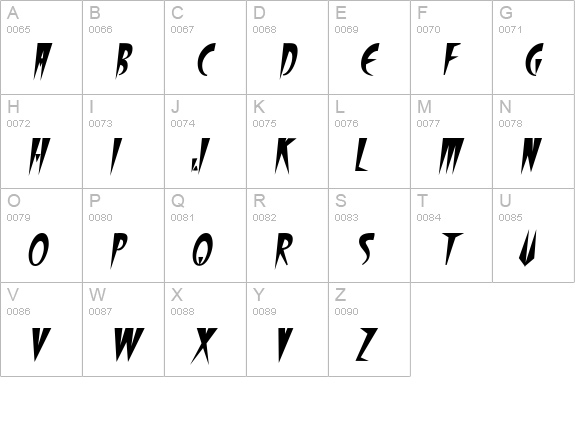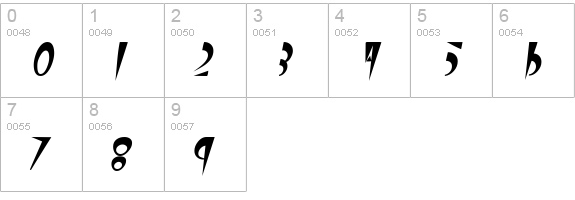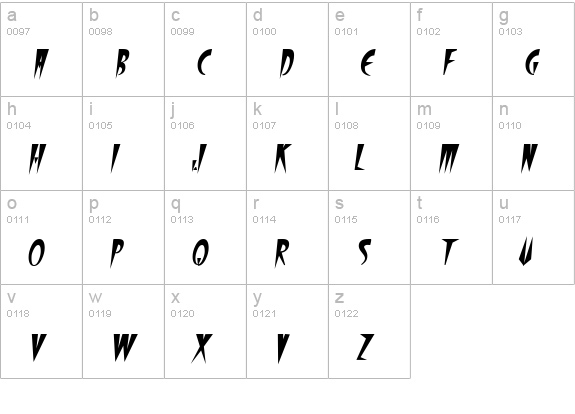
WolfgangCaps Bold Italic Font Details
WolfgangCaps Bold Italic is a strong, high-contrast, italic variant in the WolfgangCaps typeface family \xE2\x80\x94 well suited to headlines, attention-grabbing titles, and strong calls-to-action.